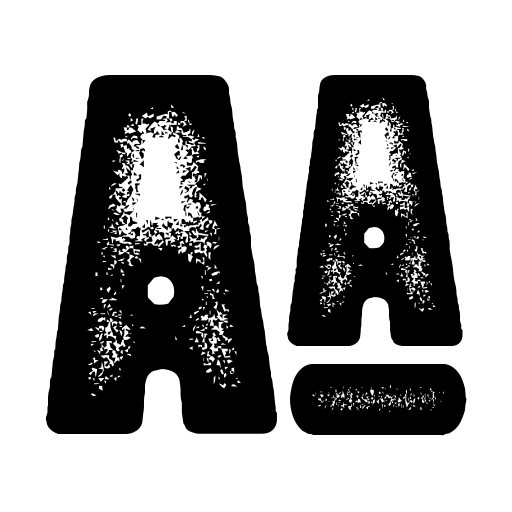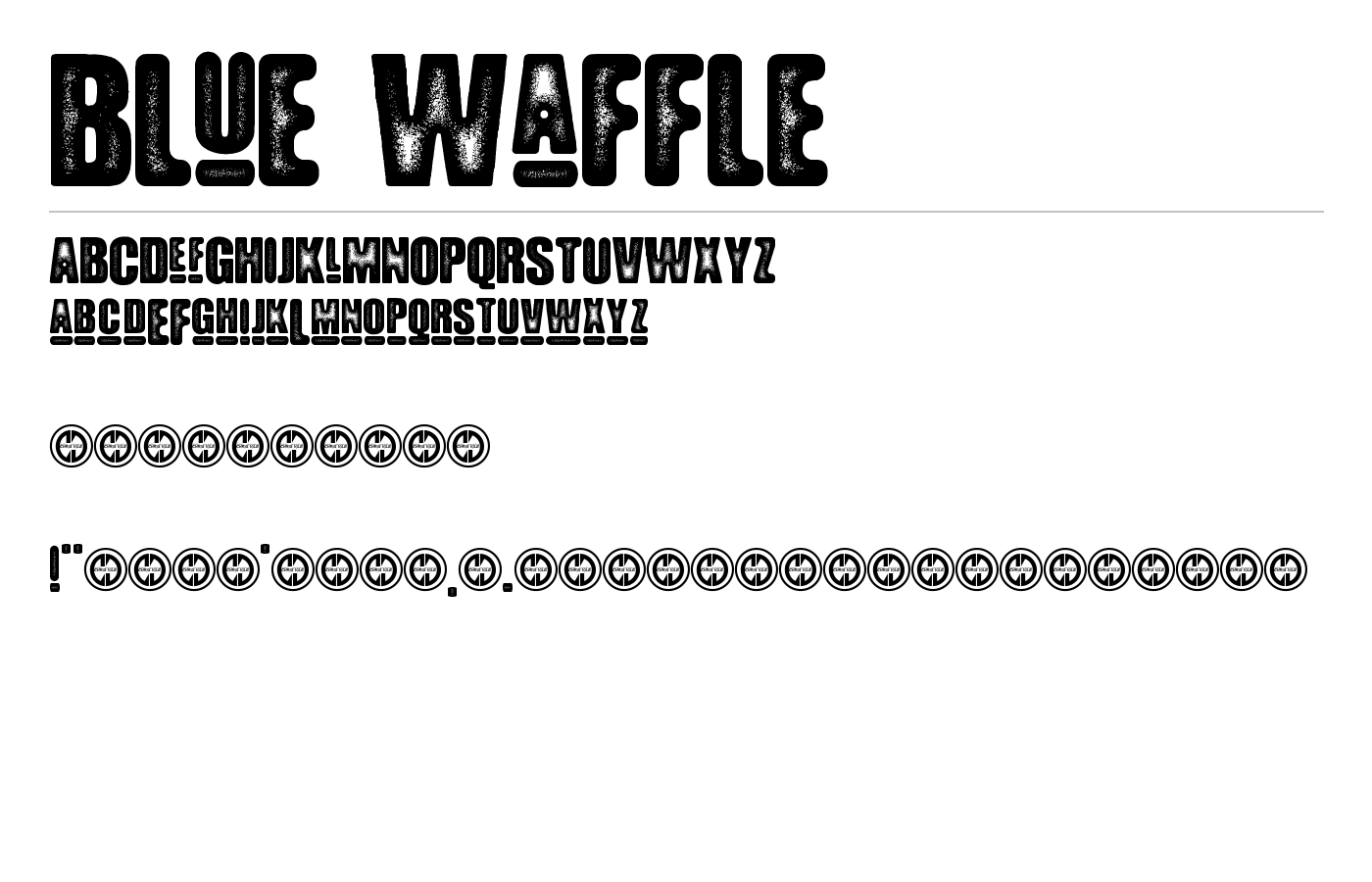
Blue Waffle is a bold, condensed sans-serif display font with a textured, distressed effect that gives it a rugged and vintage feel. Its strong, rounded letterforms with subtle irregularities make it perfect for eye-catching headlines, posters, or branding that aims to project a retro or industrial vibe. This font works especially well for designs that need personality and a handcrafted, worn look.
Blue Waffle Font
About Blue Waffle Font
| Font family | Blue Waffle Font |
| Designer | Chris Vile |